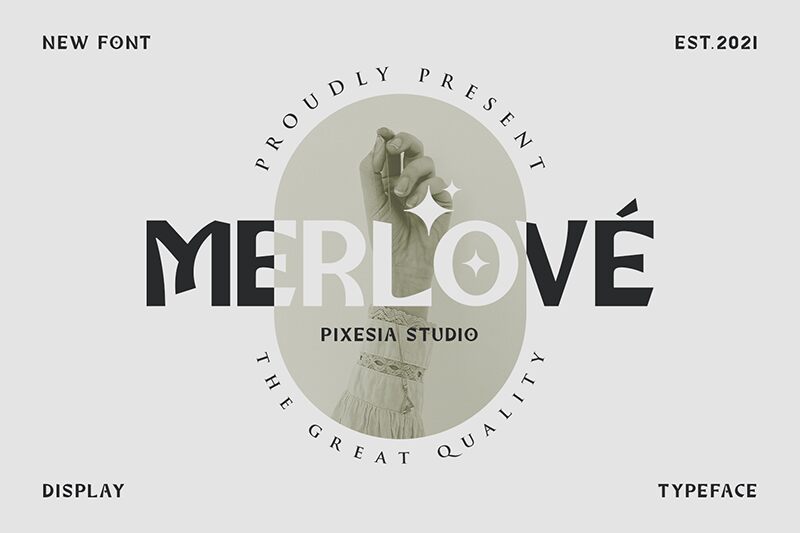
Merlove font by Pixesia Studio is an elegant and refined display typeface with a vintage-inspired style and modern flair. Stylish letterforms showcase subtle decorative elements that combine beautifully while still keeping the text legible. It’s characterized by its curvy old-school personality; plus, the bold weight makes it even more captivating for onlookers.
Use Merlove in posters, invitations, T-shirts, covers, branding projects, packaging designs, editorial artwork, social media announcements, YouTube thumbnails and other multimedia content. This visually striking font can also improve the overall appearance of websites where it can be combined with stunning photography.